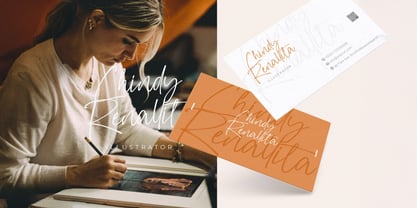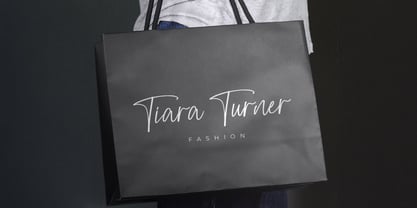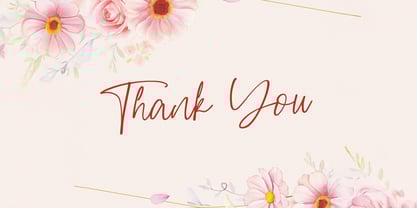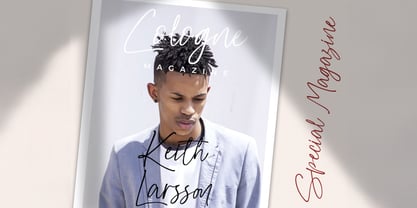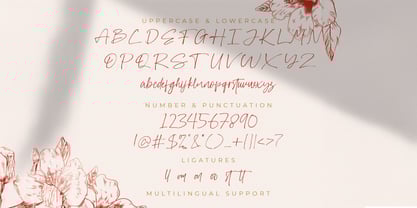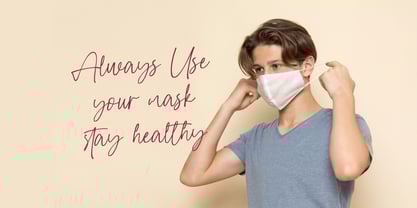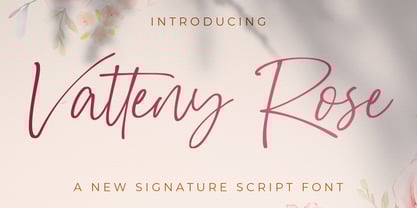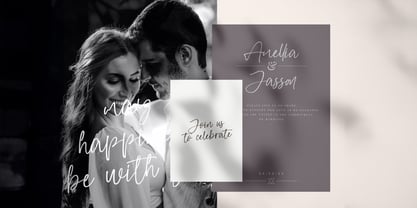
Vatteny Rose
by Stringlabs Creative Studio
The Vatteny Rose Font Family was designed by Virgiawan Listanto and published by Stringlabs Creative Studio. Vatteny Rose contains 1 styles.
Vatteny Rose is a luxurious signature script font that captures the essence of elegance and sophistication. With its delicate strokes and flowing curves, this font mimics the beauty of natural handwriting, perfect for adding a stylish personal touch to your designs.